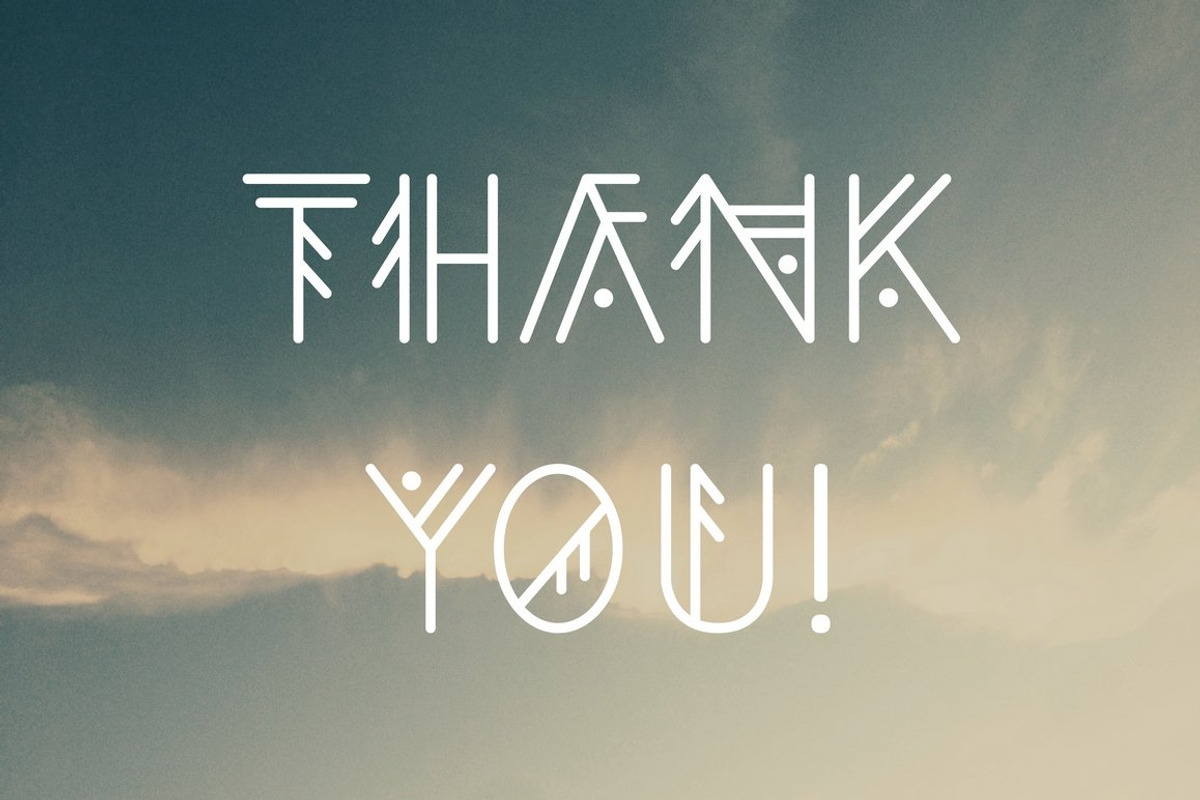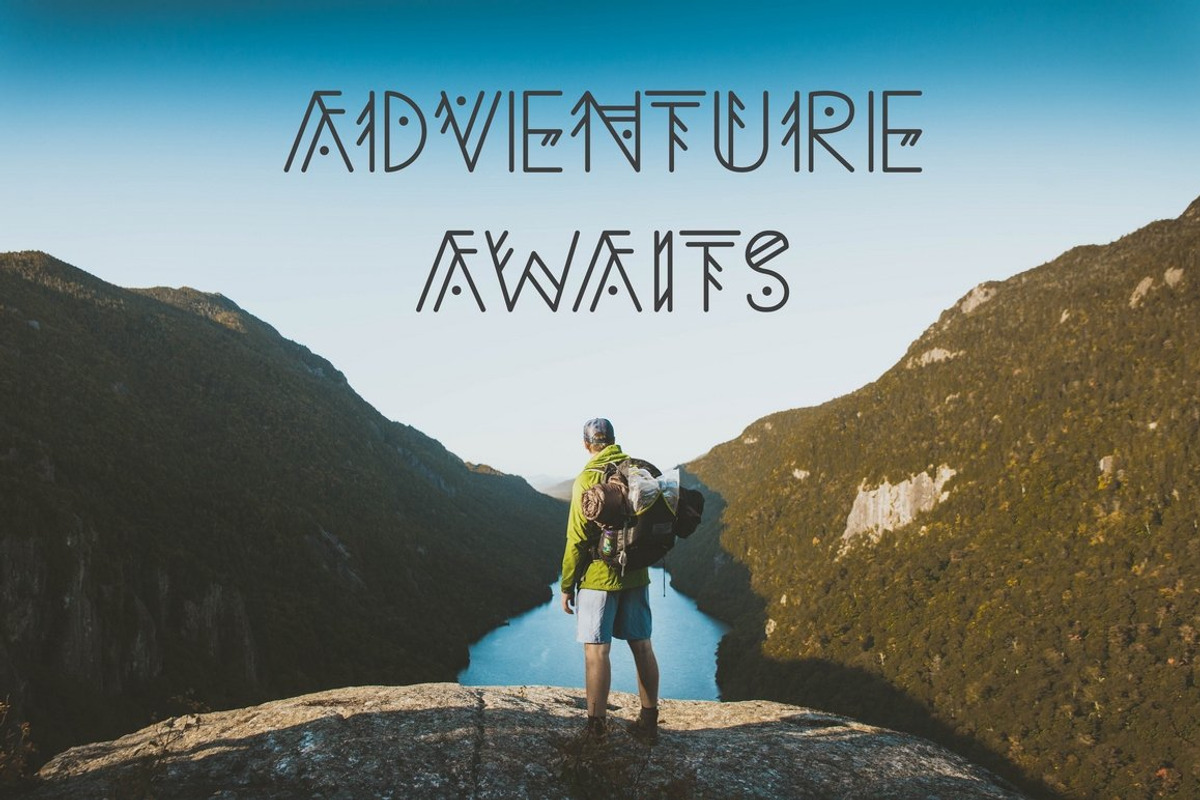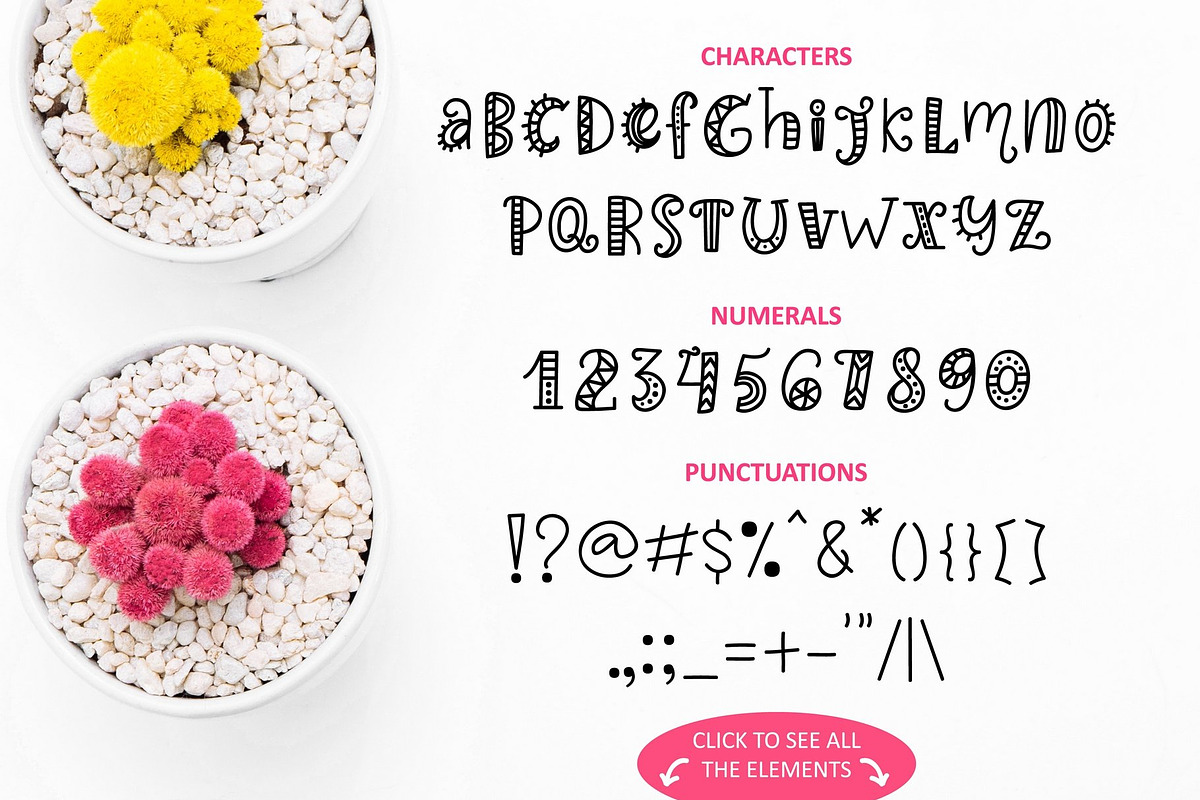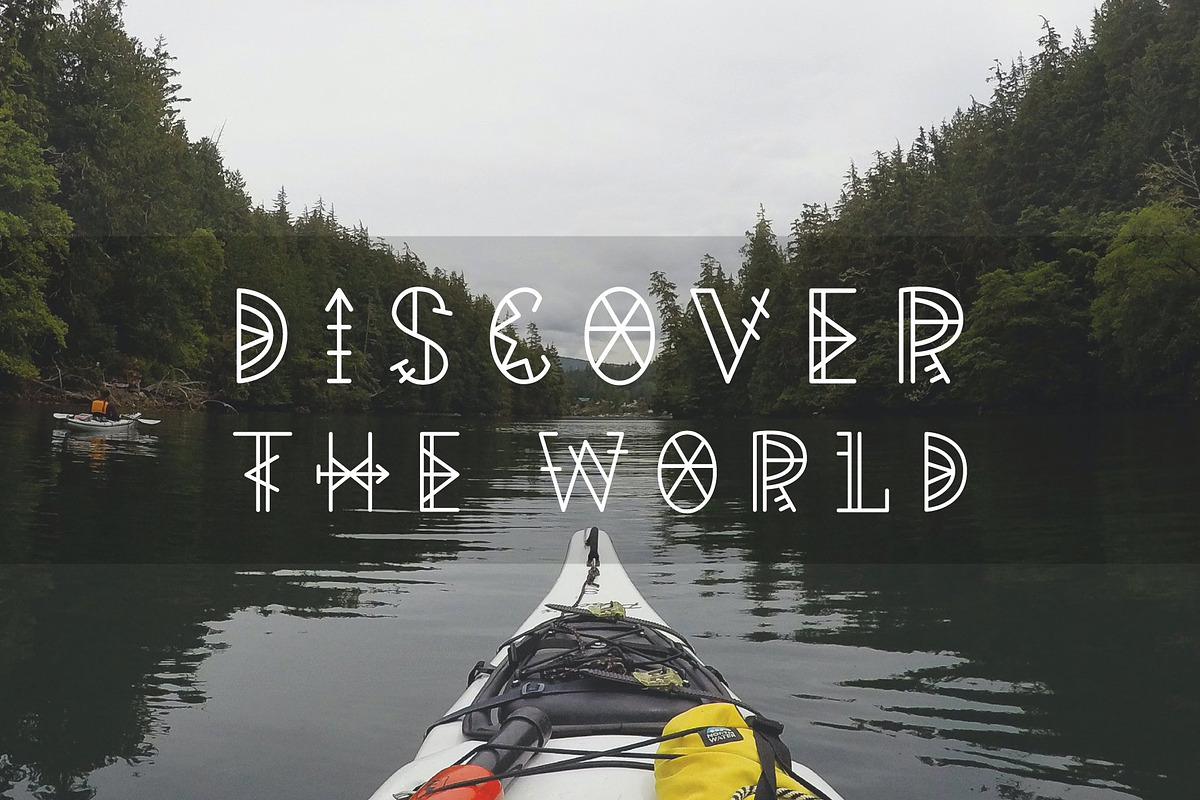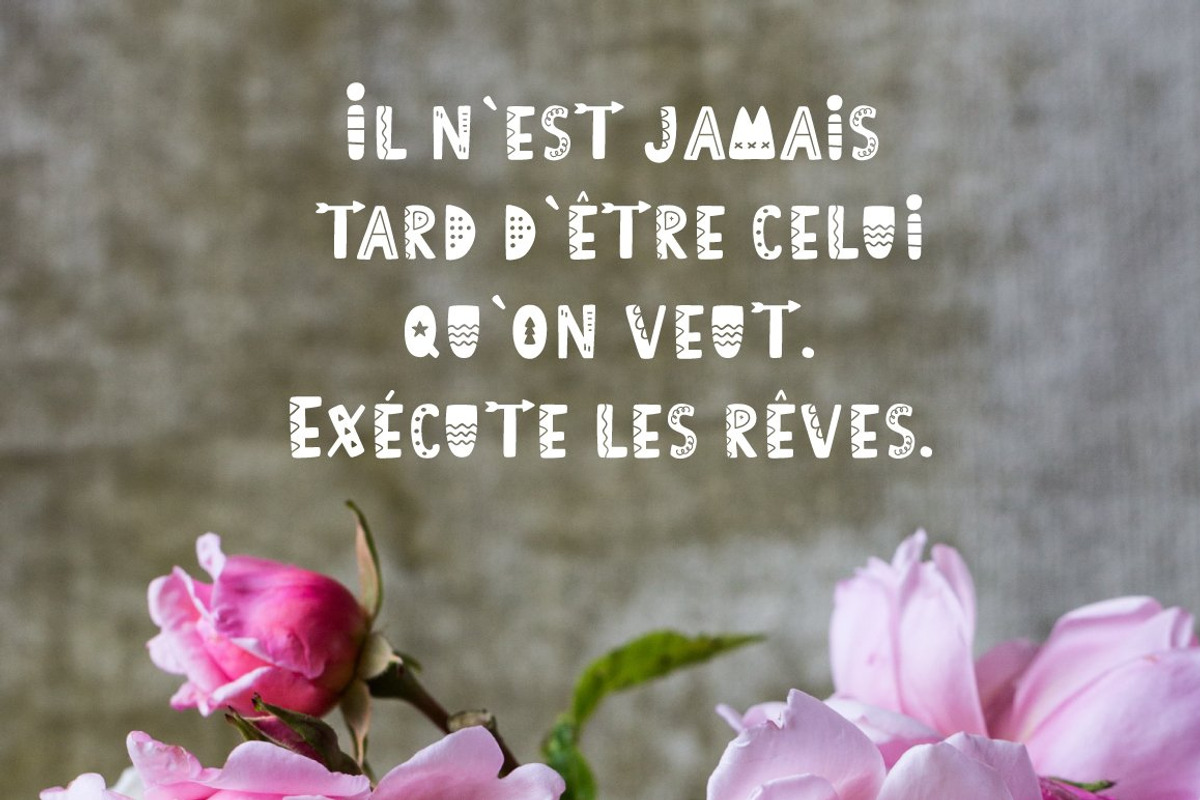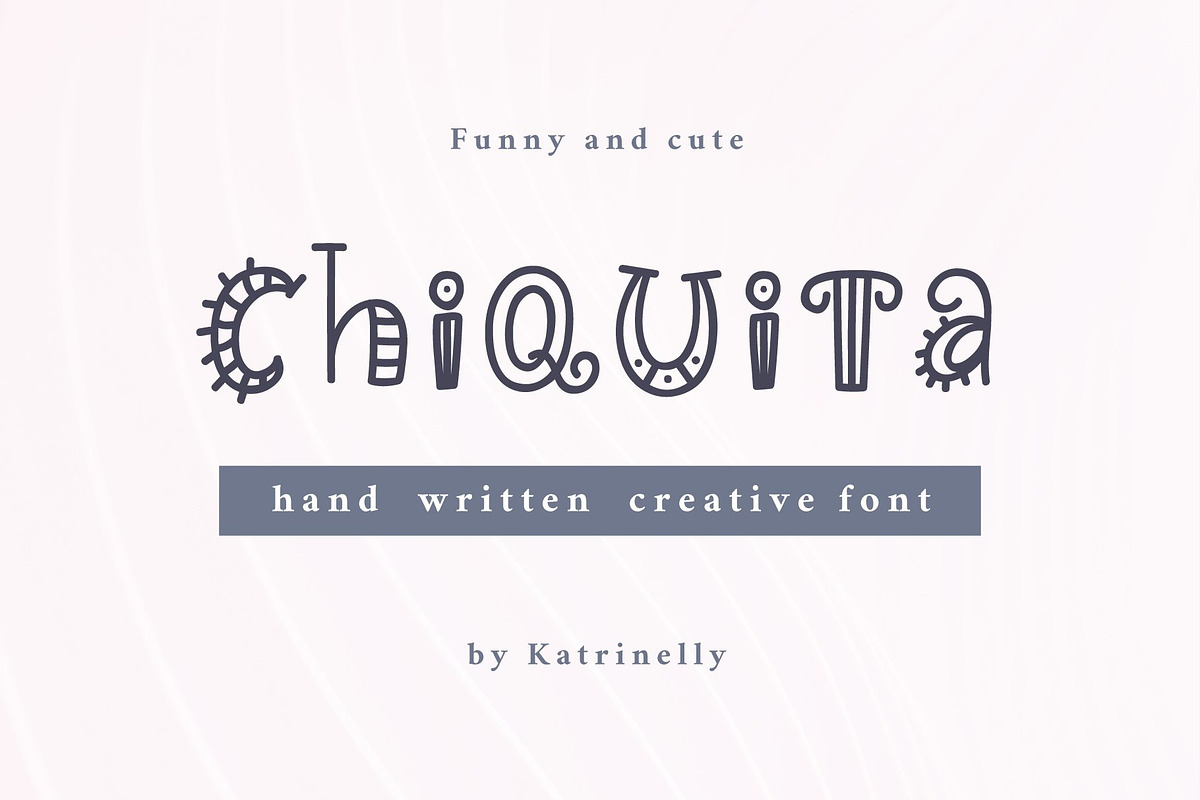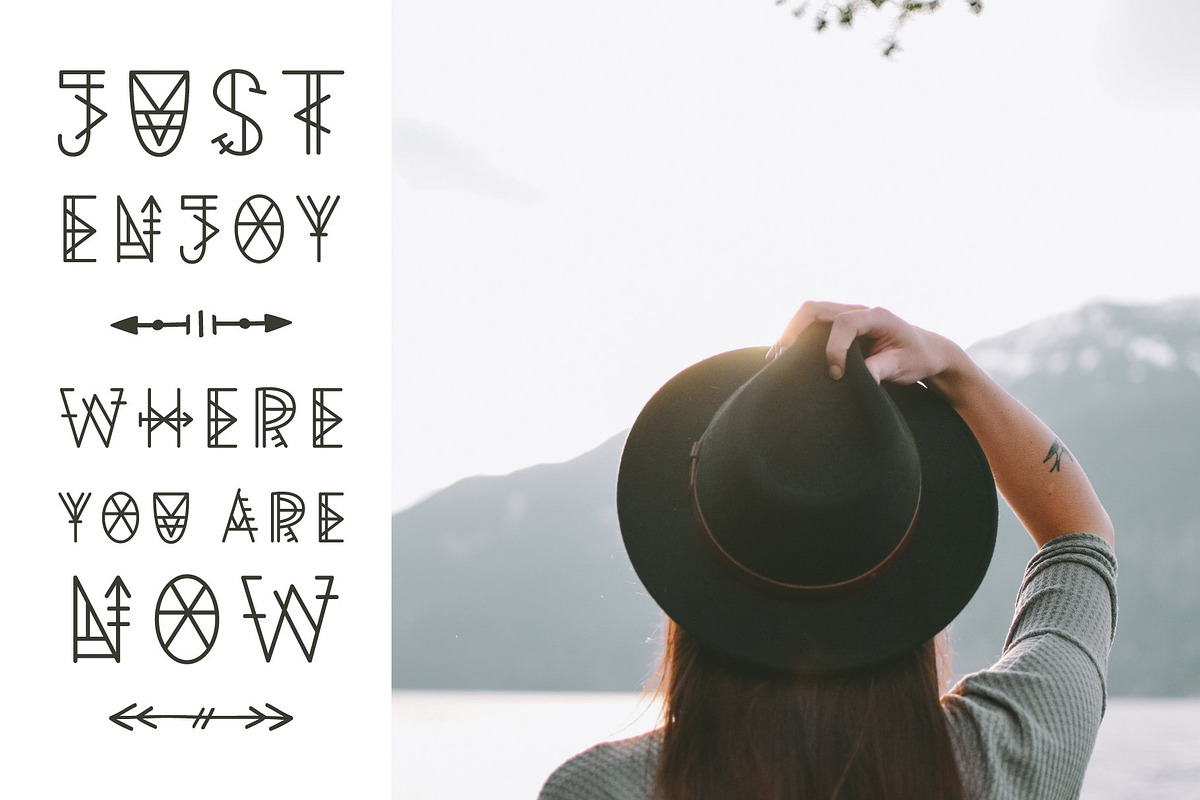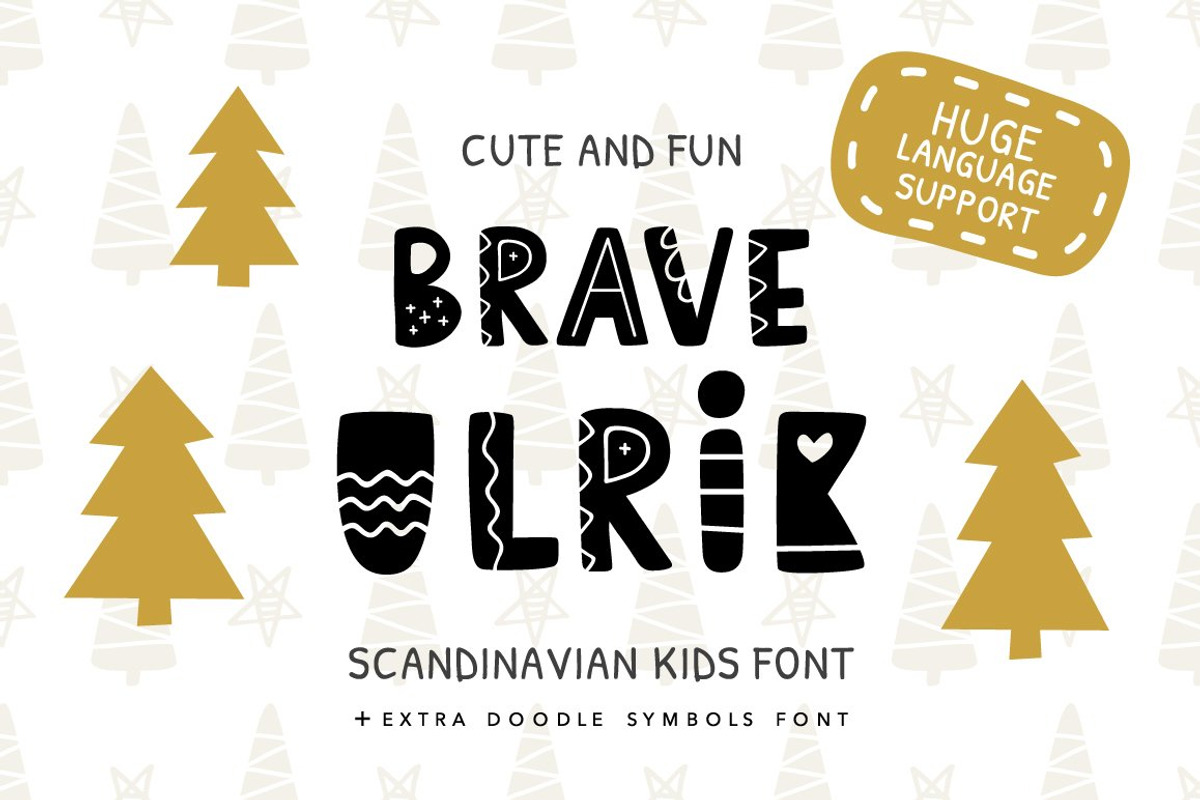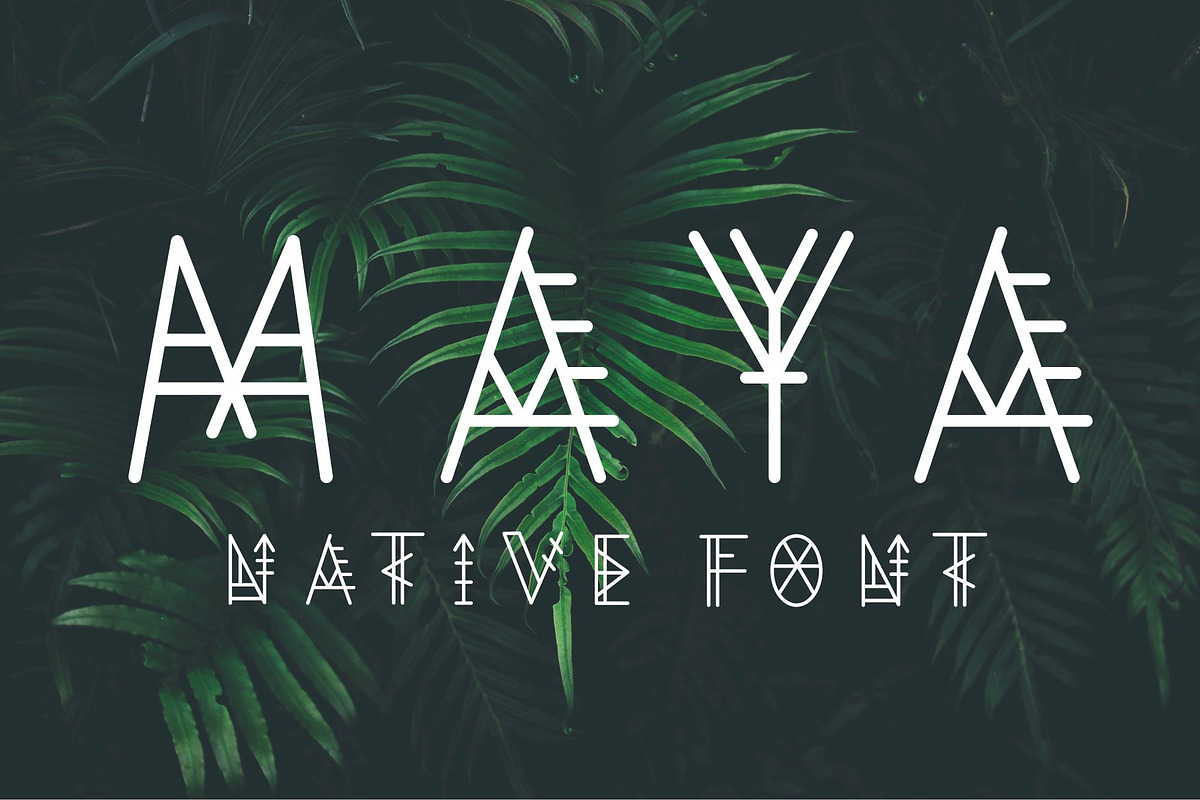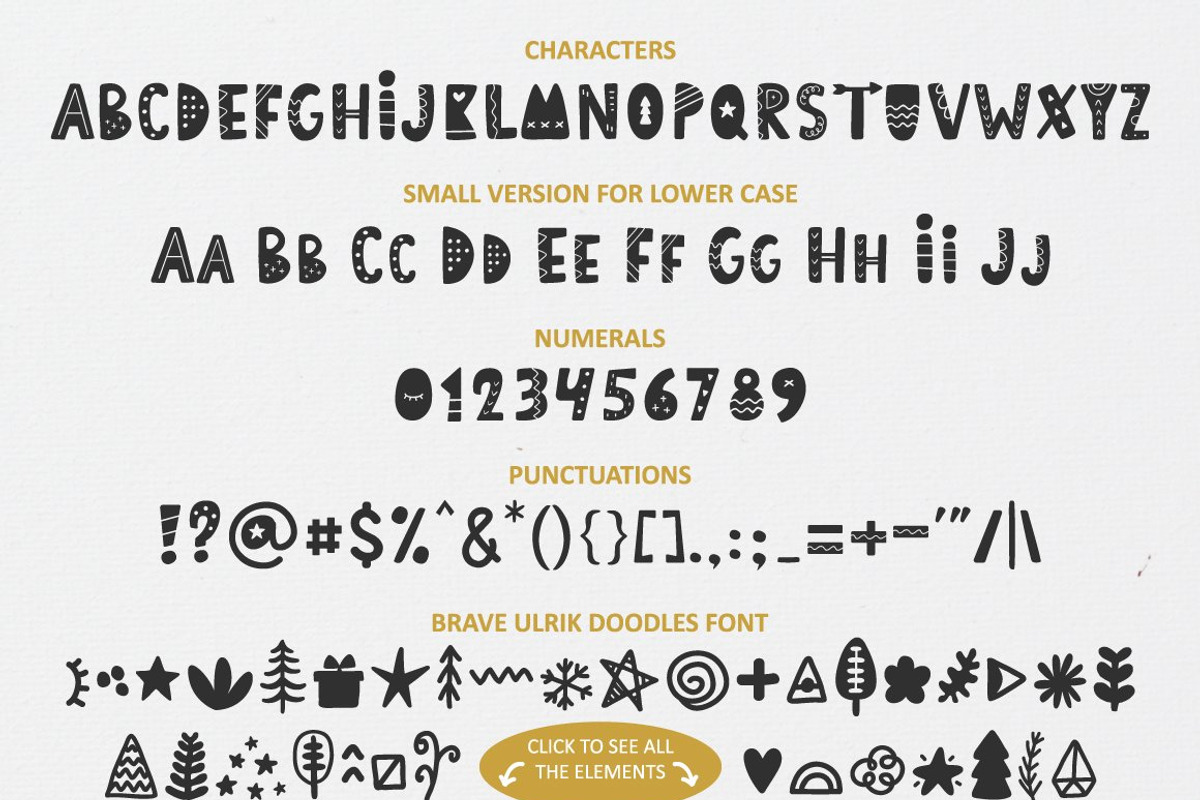
DECORATIVE FONT BUNDLE : 4 in 1
- Aztec Geometric Font: https://crmrkt.com/Qovd58
- Maya Geometric Font by Katrinelly
- Brave Ulrik Scandinavian Font: https://crmrkt.com/8Gp3xr
- Chiquita Font - creative and cute: https://crmrkt.com/d4byMV